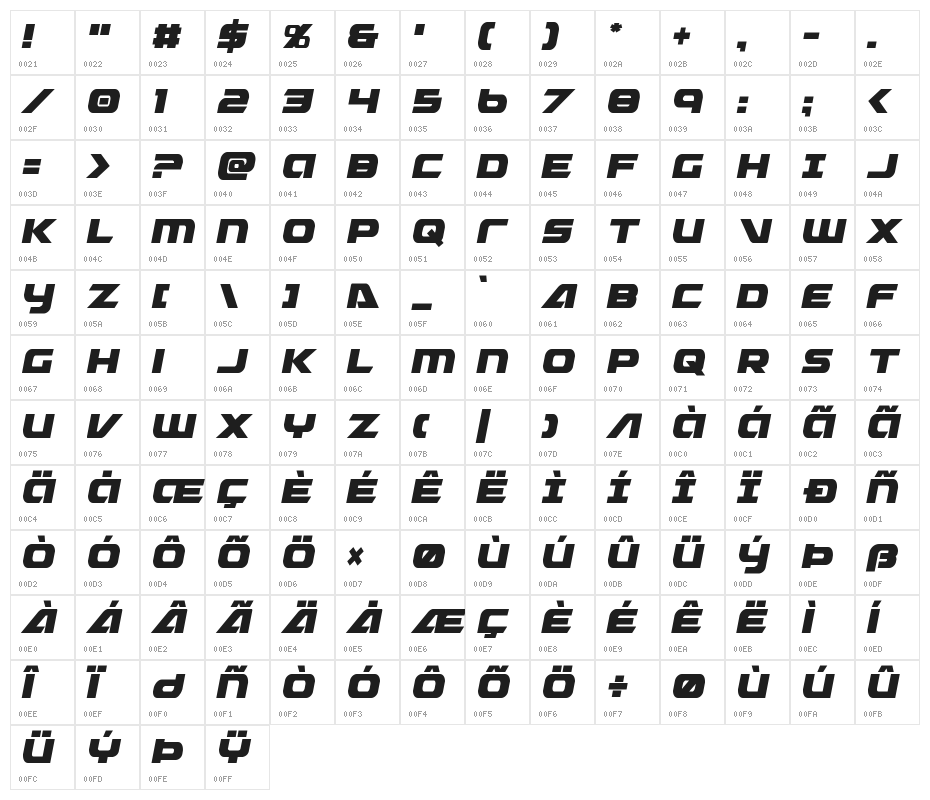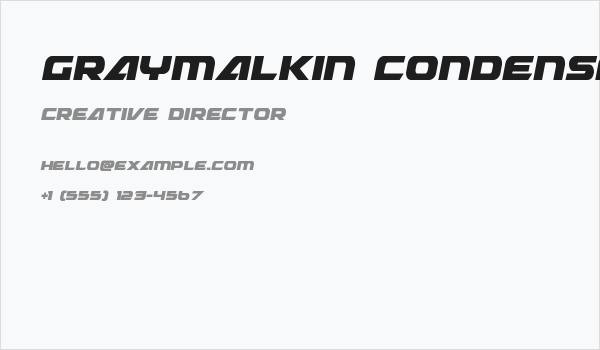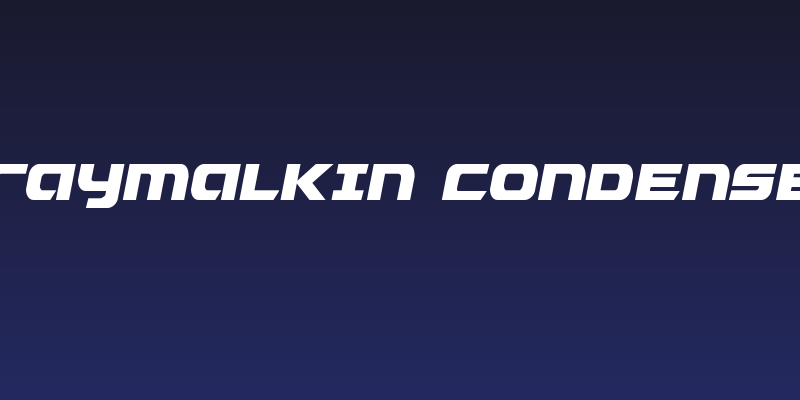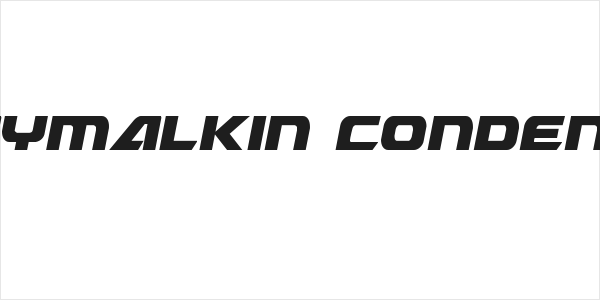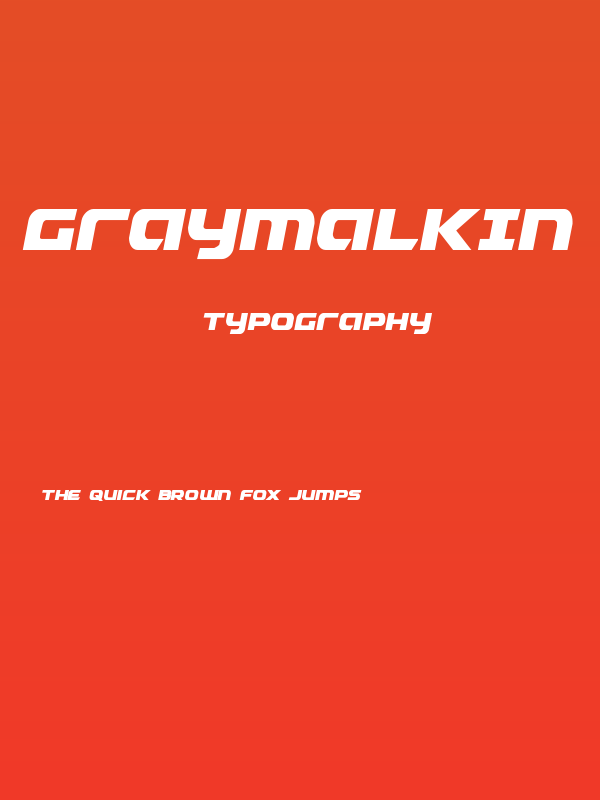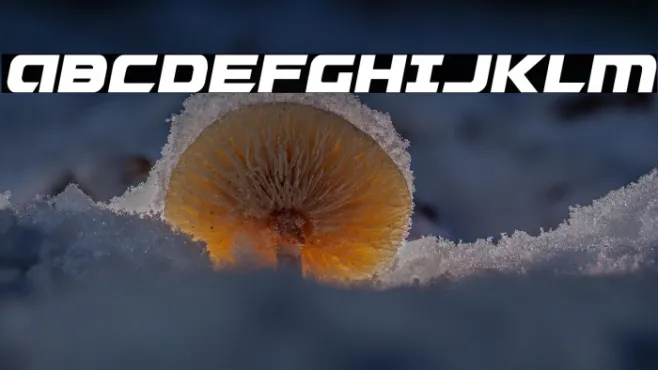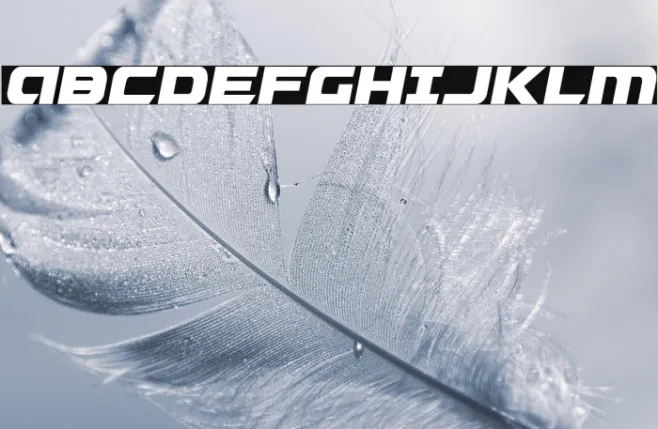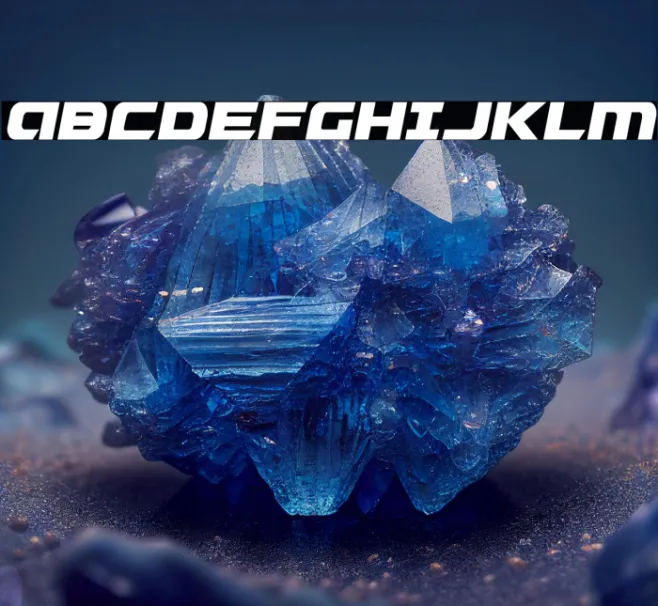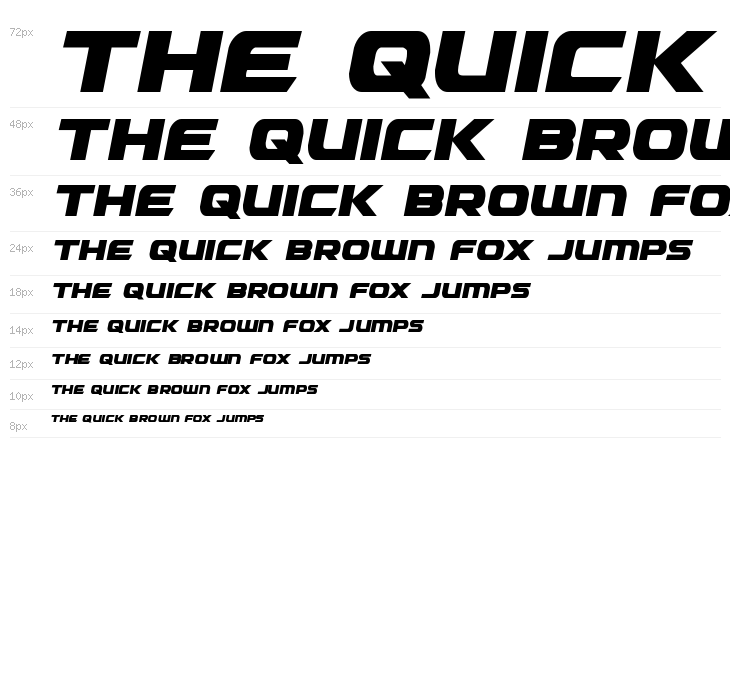
Graymalkin Condensed Font
Graymalkin Condensed Description
This font features a bold and dynamic style with a futuristic and angular design. The characters are condensed, giving a compact and efficient appearance. The uppercase and lowercase letters maintain a consistent slant, adding a sense of motion and speed. The numbers and special characters follow the same design principles, ensuring uniformity across all glyphs. The sharp edges and clean lines contribute to a modern aesthetic, making it suitable for attention-grabbing headlines or branding that requires a strong visual impact.
| Proposed Projects | Ideal for sci-fi themed projects, technology branding, sports team logos, or dynamic advertising campaigns. |